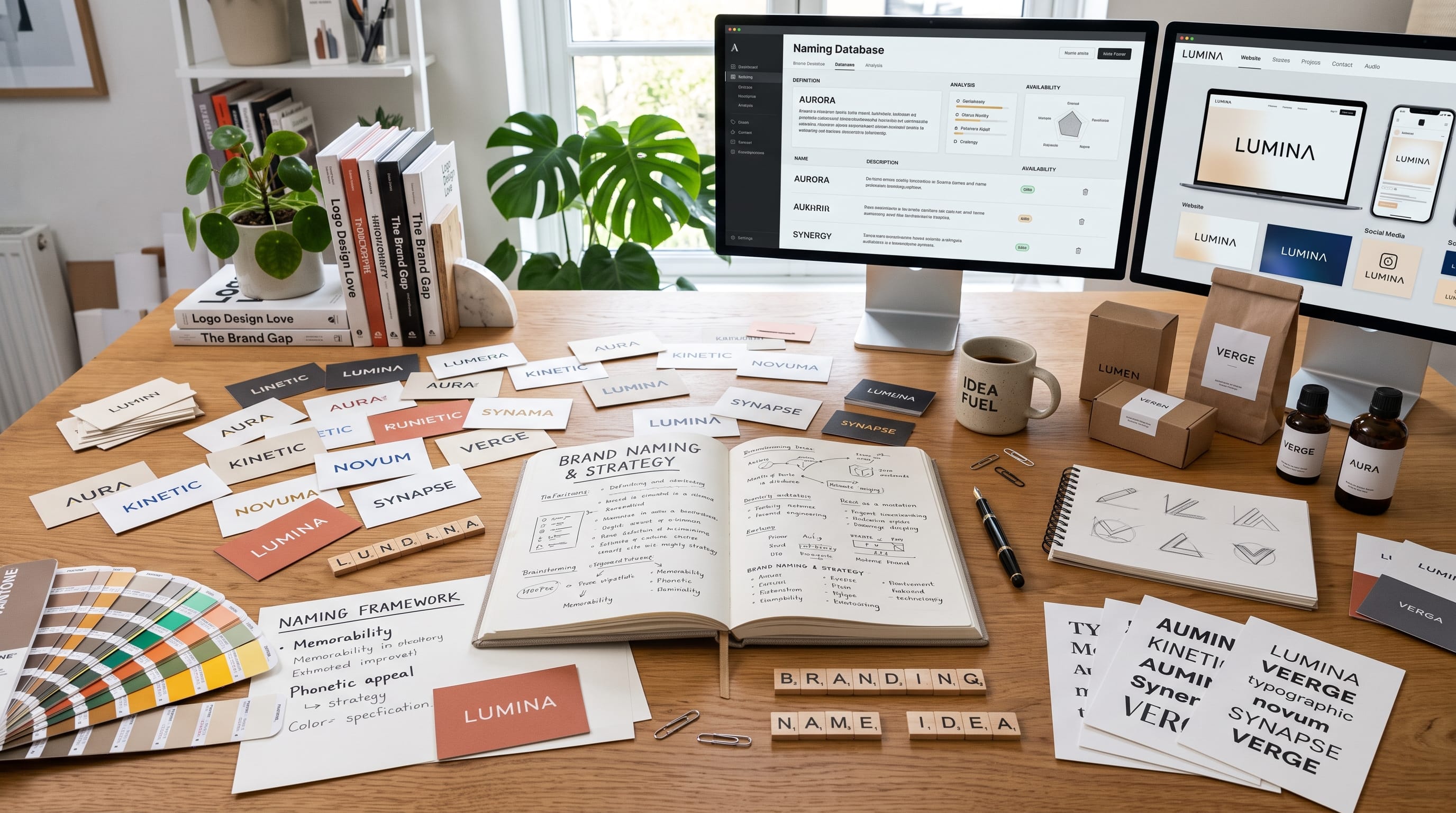
100 Modern Brand Name Ideas for New Businesses
Modern brand name ideas can help new businesses create a memorable identity before they launch a website, logo, product, or marketing campaign. A strong name should feel distinctive, easy to pronounce, visually appealing, and flexible enough to support future growth.
Choosing a business name is more than a creative exercise. The right name can shape how customers perceive the company. A short, polished name may feel premium and modern, while a warmer or more expressive name can make a brand feel personal and approachable.
Entrepreneurs should also consider how a name will look in a logo. Some names work beautifully with elegant serif fonts, while others are stronger with clean sans serif typography, monograms, scripts, or decorative display lettering.
This collection includes 100 modern brand name ideas for technology, fashion, beauty, ecommerce, creative services, lifestyle products, home brands, and other new businesses. It also includes font suggestions based on naming style so you can begin developing a more complete visual identity.
How to Choose Modern Brand Name Ideas
The strongest business names are usually easy to remember and connected to the company’s intended personality.
Before selecting a name, define:
• What the business sells
• Who the customer is
• How the brand should feel
• What makes the company different
• Whether the name must support multiple products
• Whether the business will operate locally or internationally
A modern name does not need to describe the product literally. Many successful names create an emotional impression instead.
For example, a name such as “Crestoria” may feel premium and established, while “Lettravia” sounds creative and expressive. The right choice depends on the company’s audience and visual direction.
When reviewing modern brand name ideas, ask whether the name is:
• Easy to pronounce
• Easy to spell
• Distinctive
• Suitable for a logo
• Flexible enough for growth
• Appropriate for the audience
• Available for legal and digital use
Always check trademarks, domain availability, and social media handles before making a final decision.
Modern Brand Name Ideas for Creative Businesses
These names suit design studios, content agencies, branding companies, creative marketplaces, and artistic services.
1. Lettravia
2. Formelle
3. Creativoa
4. Studio Nuvia
5. Vistora
6. Artelune
7. Bravelle
8. Motifera
9. Elanform
10. Visuora
These modern brand name ideas feel flexible enough for design, branding, illustration, photography, or digital content.
Font Suggestions for Creative Brand Names
For a creative studio, consider expressive display fonts or refined monogram styles.
Strong font directions include:
• Halista for editorial or handcrafted branding
• Ronallatie for elegant creative businesses
A creative name can also pair well with a modern sans serif for body copy. Use the decorative font for the logo and a simpler font for website text.
Modern Brand Name Ideas for Technology Startups
Technology names often work best when they are short, clear, and easy to pronounce.
1. Nexora
2. Velnix
3. Codiva
4. Syntrio
5. Zenvex
6. Inovara
7. Kinetiq
8. Novaryn
9. Fluxera
10. Quantivo
These names can suit software, artificial intelligence, analytics, productivity tools, cybersecurity, or digital platforms.
Font Suggestions for Technology Brands
Technology brands usually benefit from clean typography with precise shapes.
Use a modern sans serif for the main identity, then consider one of these saved font directions for special branding elements:
• Melvick for a bold contemporary wordmark
• Zyberon for modern digital products
Keep the logo simple and avoid highly decorative lettering when the company needs to communicate speed, clarity, or security.
Modern Brand Name Ideas for Fashion Brands
Fashion names often rely on elegance, rhythm, and visual appeal.
1. Veloura
2. Marivelle
3. Avenoire
4. Celestique
5. Doralisse
6. Vionelle
7. Elvara
8. Rosellea
9. Savienne
10. Luméra
These modern brand name ideas can work for clothing labels, accessories, jewelry, luxury products, and fashion ecommerce stores.
Font Suggestions for Fashion Names
Elegant fashion brands often use serif fonts, high-contrast lettering, or refined monograms.
Recommended directions include:
For a premium look, use generous letter spacing and a restrained color palette.